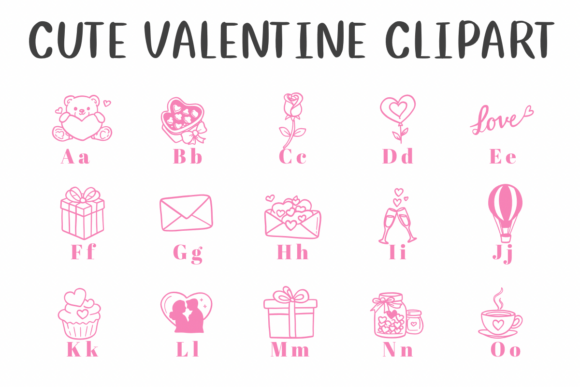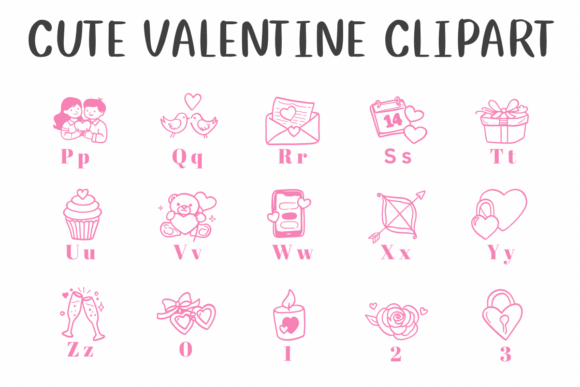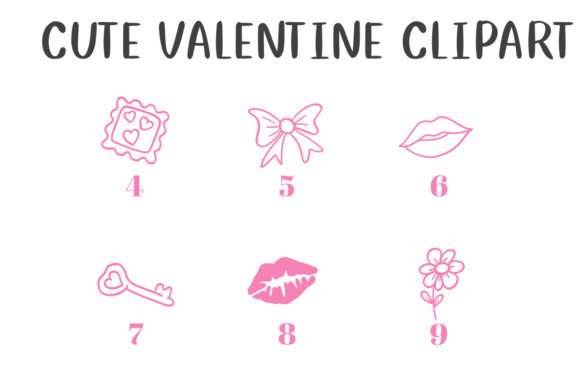
Introduction to Cute Valentine Clipart Font
Cute Valentine Clipart is a lovely dingbats font.
Key Features of Cute Valentine Clipart Font
Why Choose Cute Valentine Clipart Font?
Cute Valentine Clipart Font offers exceptional quality and versatility, making it a valuable addition to your design toolkit. Whether you’re creating for personal projects or commercial use, Cute Valentine Clipart Font delivers professional results.